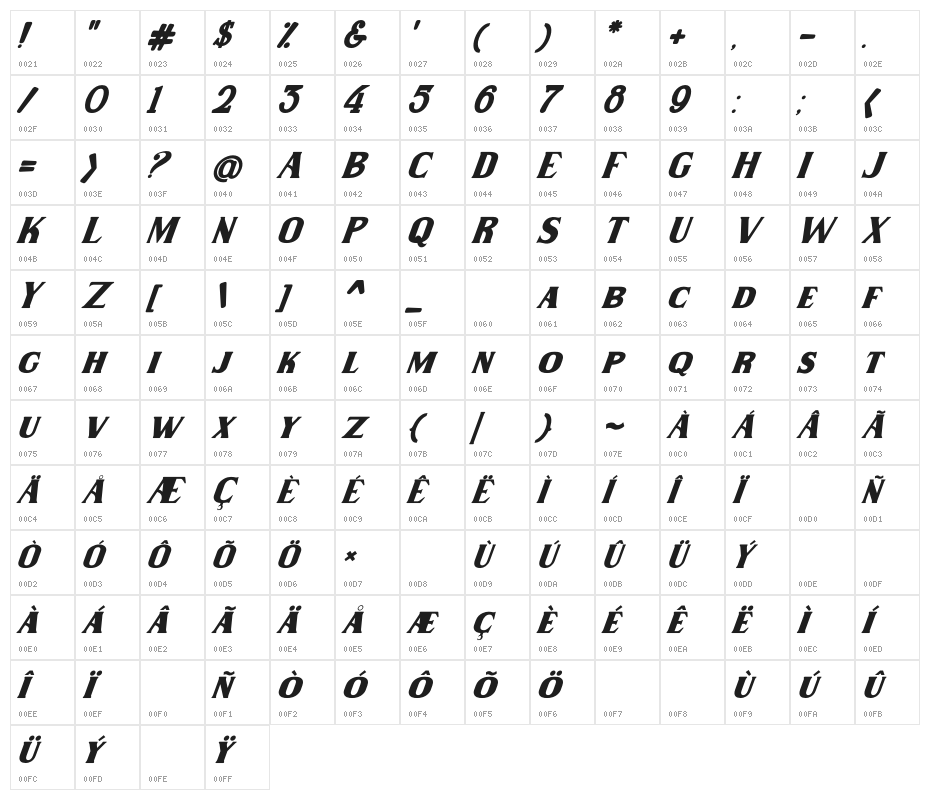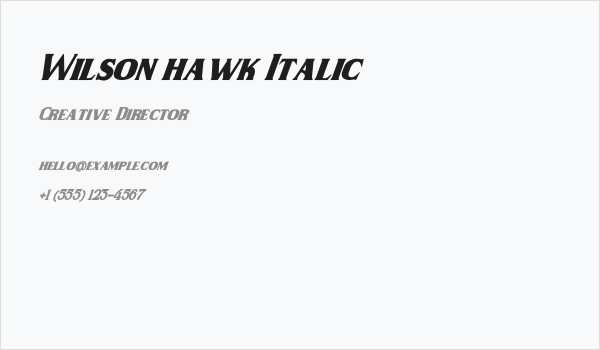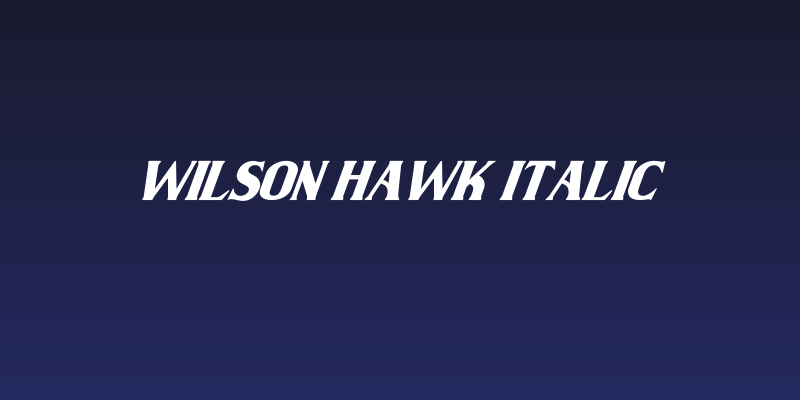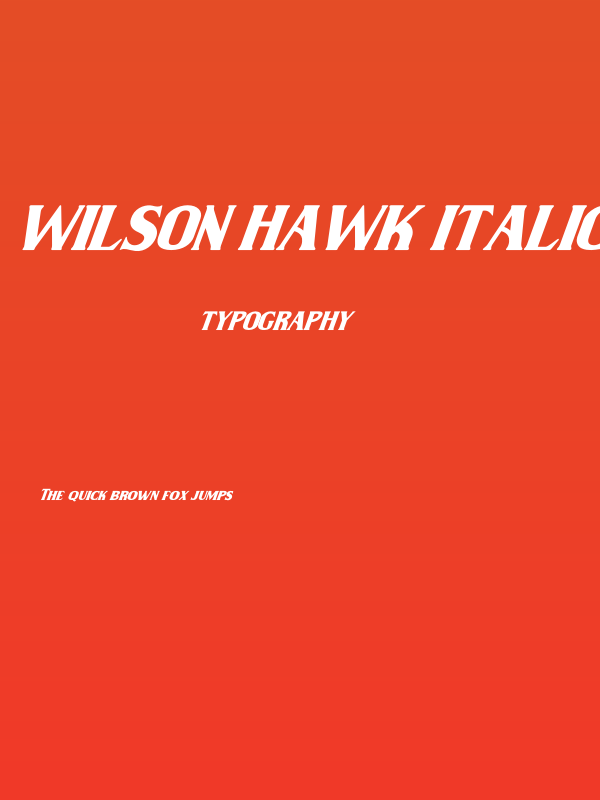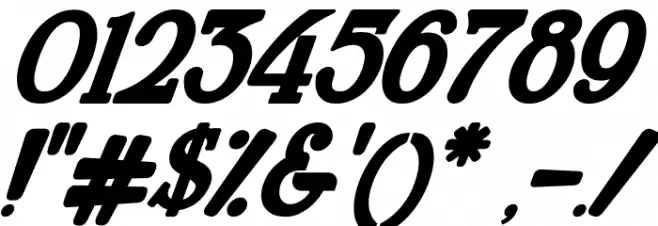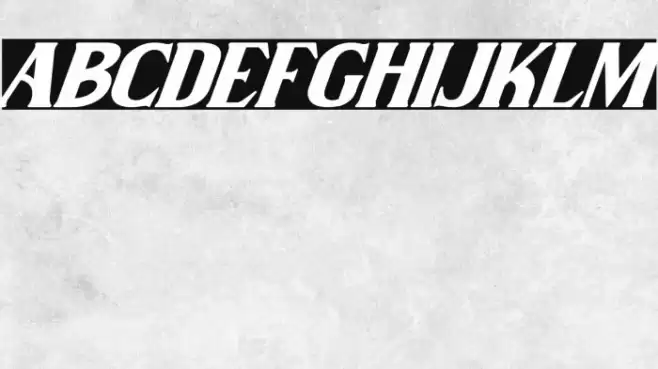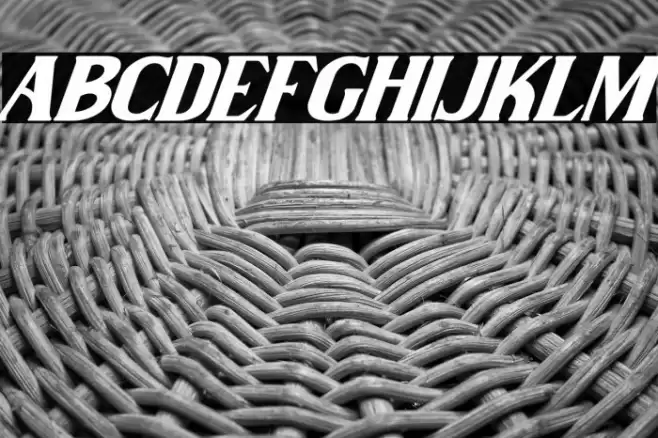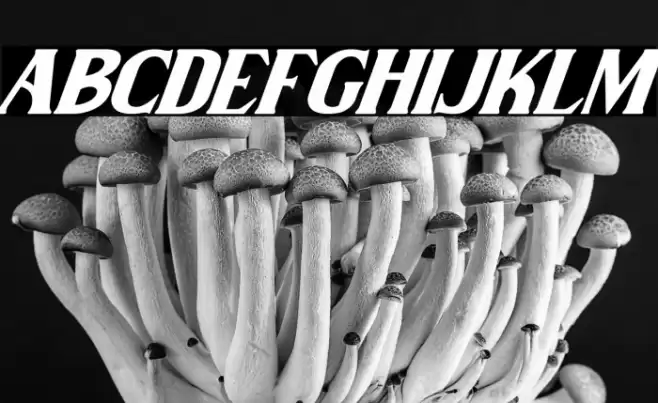
Wilson hawk Italic Font
This font features a bold and dynamic italic style, characterized by its strong diagonal emphasis and thick strokes. The uppercase letters are robust and commanding, with a slight slant that adds a sense of motion and urgency. The lowercase letters maintain the same boldness, ensuring consistency throughout the typeface. Numbers are equally bold, making them stand out prominently. Special characters are designed with the same attention to detail, ensuring they integrate seamlessly with the rest of the font. The overall appearance is both modern and assertive, making it suitable for impactful design projects.